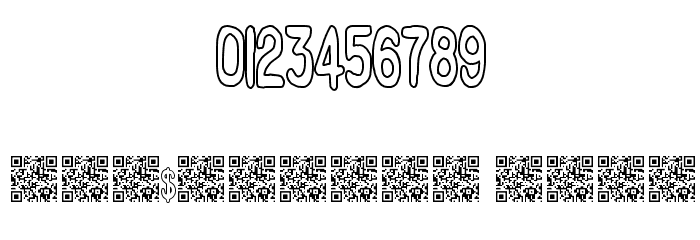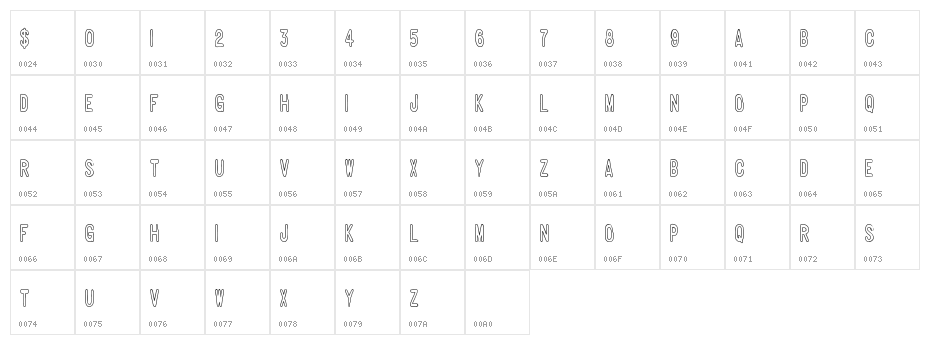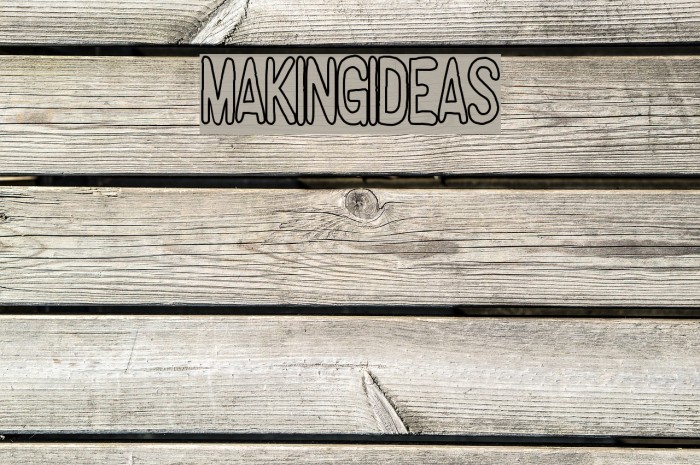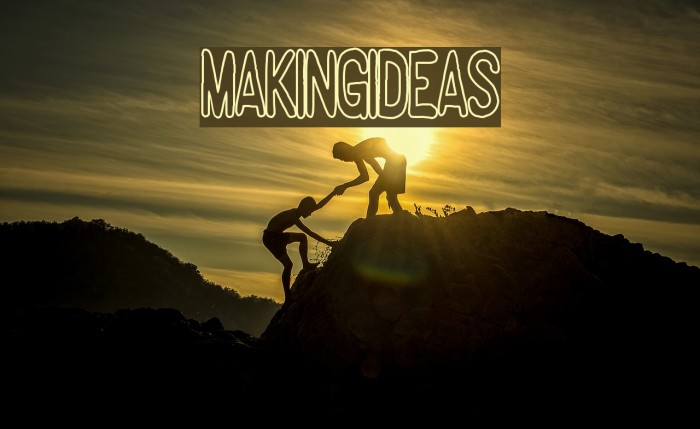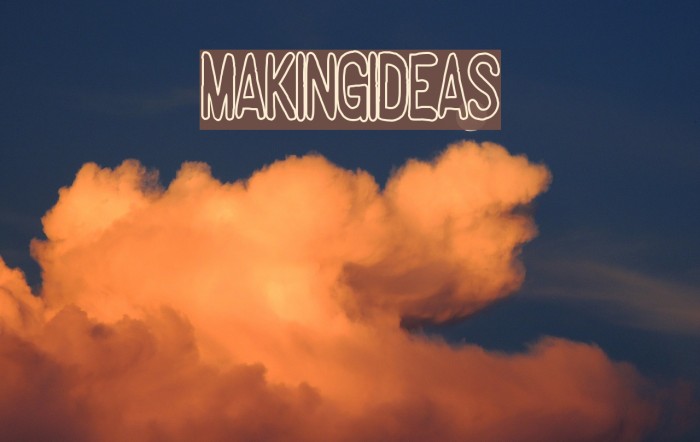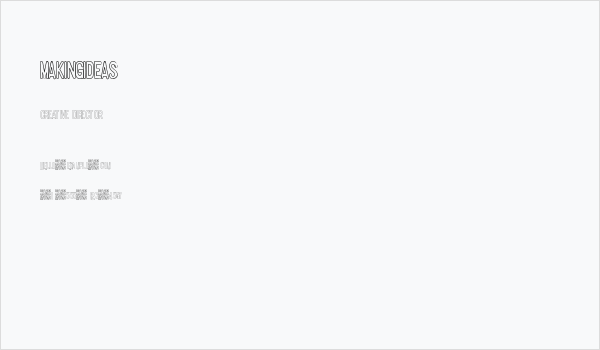
MakingIdeas Font
MakingIdeas Description
This font features a playful and bold outline style, characterized by its hollow, bubble-like appearance. Each character is defined by a thick, consistent stroke that forms the outer boundary, giving it a three-dimensional effect. The uppercase letters are uniform in height, while the numerals maintain a similar width, ensuring a balanced visual appeal. The font's whimsical nature makes it stand out, capturing attention with its unique, cartoonish flair. It is well-suited for projects that require a fun and engaging typeface, such as children's books, playful branding, or creative posters.
| Overall Style | Playful, Cartoonish |
| Proposed Projects | Ideal for children's books, playful branding, creative posters, and any project needing a fun, engaging typeface. |